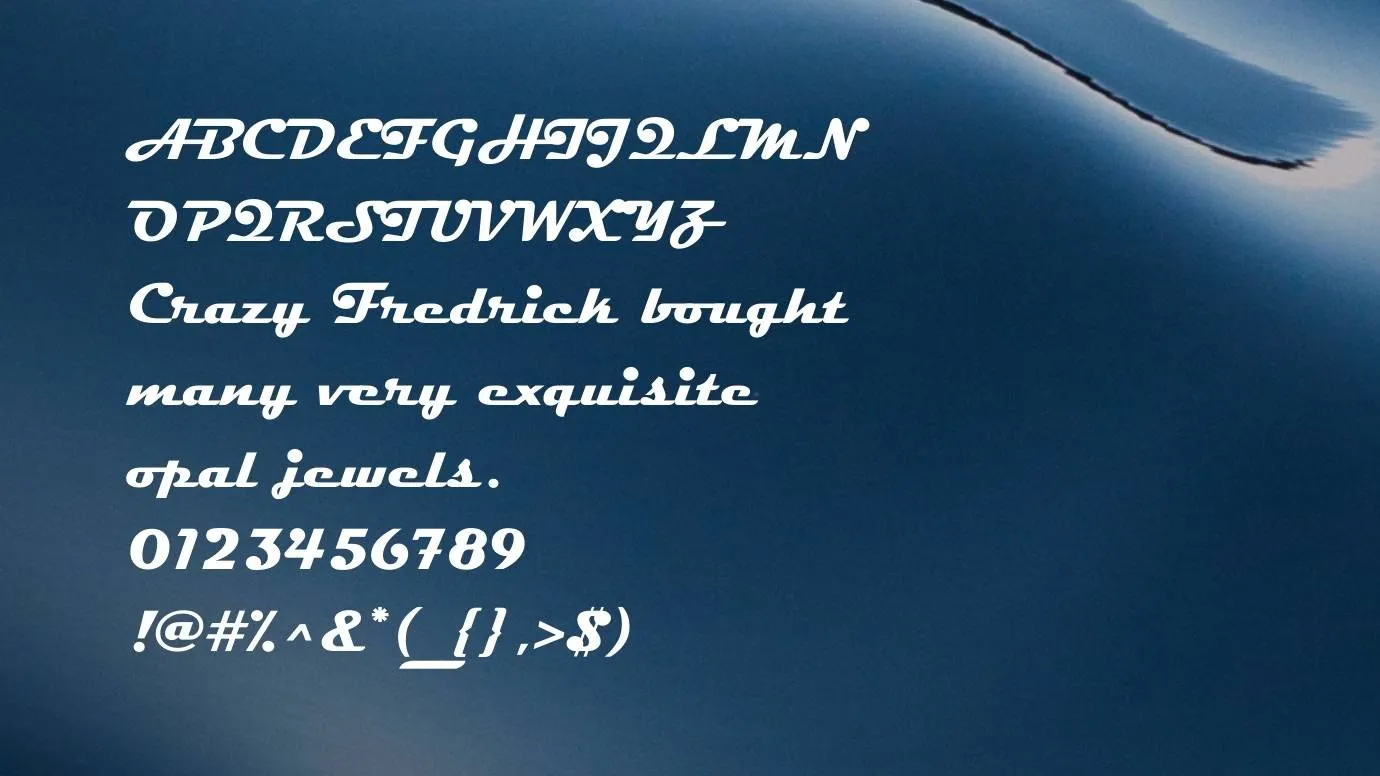
The Magneto font is a calligraphy font with a decorative and creative texture, making it ideal for fancy and creative designs. Its prominent and semi-bold appearance is perfect for display designs as well. With approximately 167 glyphs and 254 characters, this unique font offers endless possibilities for decorative designs.
This font style has an immature texture appearance that is not suitable to create official documentation. You can use this font style to create trendy youtube thumbnails. This font style has a Semi-bold and prominent texture appearance that is not suitable for small size screen displays and for long texts. But this font is perfect to create amazing headings and displays. It is appropriate to use it on large screen display sizes.
This calligraphy font has been designed by a well-known graphic designer, illustrator, cartoonist, and font maker named Leslie Cabarga. He has also created a number of fonts that are used in almost every design platform.
This font texture is constructed with three styles Bold, Bold Extended, Super Bold Extended. Each style of this family is comprised of capital letters, small letters, glyphs, punctuations, numbers, symbols, special characters, and many languages support.
| Name | Magneto Font |
| Style | Calligraphy |
| Designer | Leslie Cabarga |
It can support up to 79 languages.
What font is Magneto?
This font is a calligraphy font that has a decorative and creative texture appearance that is best for creative and fancy designs.
Is there any similar font to the Magneto font?
There are some of the fonts that are similar to this typeface. But Sarina font is the most similar to this font style.
Who designed Magneto Font?
This calligraphy font has been designed by a well-known graphic designer, illustrator, cartoonist, and font maker named Leslie Cabarga.